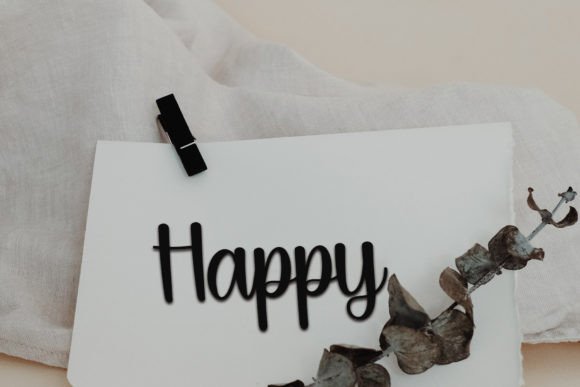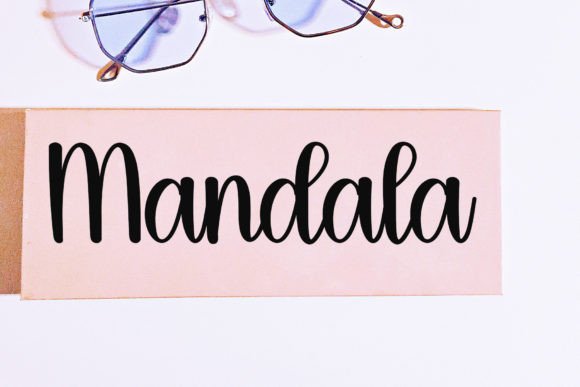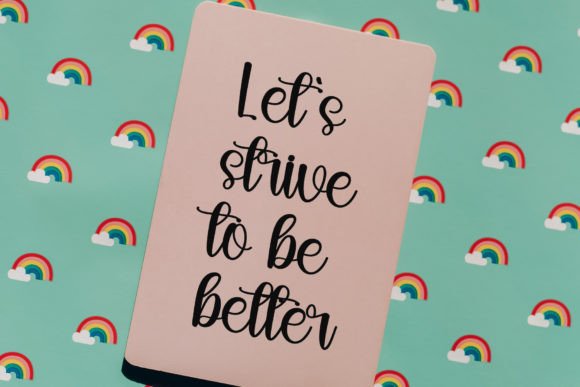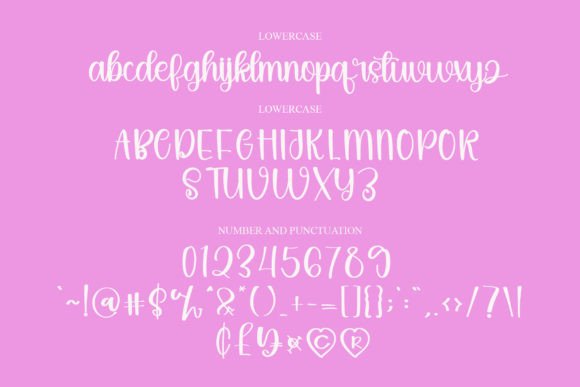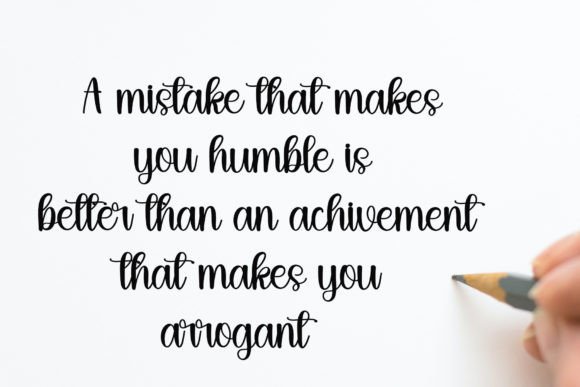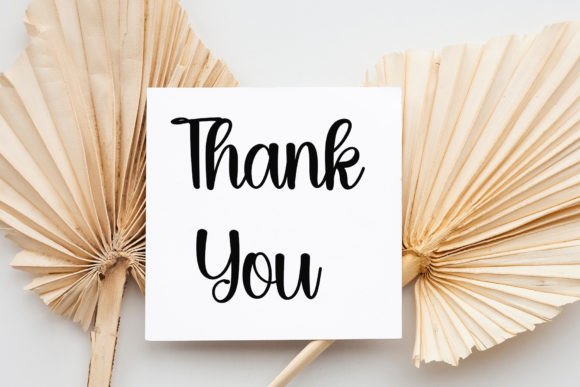
Epic Font: Adding a Touch of Whimsy to Your Designs
Are you looking for a font that can add a playful and friendly vibe to your designs? Look no further than Epic Font, a cute script font that is perfect for projects that require a touch of whimsy. With its natural, handwritten style and curvy letterforms, Epic Font is sure to bring a sense of approachability and warmth to any design.
The Characteristics of Epic Font
Epic Font is a script font that is characterized by its playful and curvy letterforms. The font has a natural, handwritten style that gives it a personal and charming feel. The letters are connected in a way that creates a sense of fluidity and movement, making it perfect for designs that require a sense of energy and playfulness.
One of the standout features of Epic Font is its ability to add a touch of whimsy to any design. The font’s curvy letterforms and playful style make it perfect for designs that require a sense of fun and friendliness. Whether you’re working on a project for a children’s brand, a craft company, or a lifestyle blog, Epic Font is sure to bring a smile to your audience’s face.
The Benefits of Using Epic Font
So why should you choose Epic Font for your next project? Here are just a few benefits of using this adorable script font:
- Approachability**: Epic Font’s playful and curvy letterforms create a sense of approachability and warmth, making it perfect for designs that require a personal touch.
- Whimsy**: The font’s natural, handwritten style adds a touch of whimsy to any design, making it perfect for projects that require a sense of fun and playfulness.
- Versatility**: Epic Font is a versatile font that can be used for a wide range of projects, from children’s brands to lifestyle blogs.
- Ease of use**: The font is easy to read and can be used in a variety of contexts, from headings to body copy.
How to Use Epic Font in Your Designs
Epic Font is a versatile font that can be used in a wide range of designs. Here are a few ideas for how you can use this adorable script font in your next project:
- Children’s brands**: Epic Font is perfect for children’s brands, such as toy companies, kids’ clothing brands, and children’s book publishers.
- Craft companies**: The font’s playful and curvy letterforms make it perfect for craft companies, such as yarn manufacturers, sewing pattern designers, and jewelry makers.
- Lifestyle blogs**: Epic Font is also perfect for lifestyle blogs, such as food blogs, fashion blogs, and home decor blogs.
- Invitations and stationery**: The font’s natural, handwritten style makes it perfect for invitations and stationery, such as wedding invitations, birthday cards, and thank-you notes.
Tips for Pairing Epic Font with Other Fonts
When pairing Epic Font with other fonts, there are a few things to keep in mind. Here are a few tips to help you create a beautiful and cohesive design:
- Pair with a sans-serif font**: Pairing Epic Font with a sans-serif font, such as Arial or Helvetica, can create a nice contrast and make your design stand out.
- Use a bold font for headings**: Using a bold font for headings can help to create a clear hierarchy of information and make your design more visually appealing.
- Experiment with font sizes**: Experimenting with font sizes can help to create a sense of visual interest and add depth to your design.
Epic Font is a cute script font that is perfect for designs that require a touch of whimsy. With its natural, handwritten style and curvy letterforms, Epic Font is sure to bring a sense of approachability and warmth to any design. Whether you’re working on a project for a children’s brand, a craft company, or a lifestyle blog, Epic Font is a great choice. So why not give it a try and see how it can add a touch of fun and friendliness to your designs?